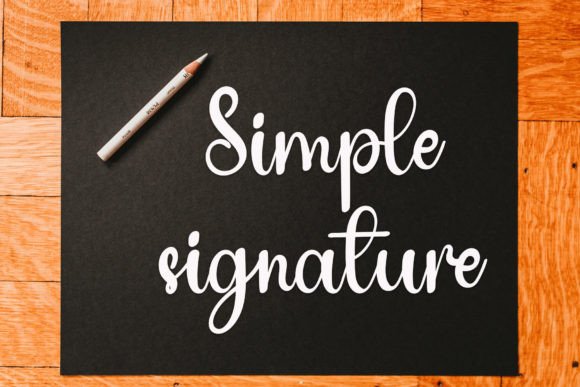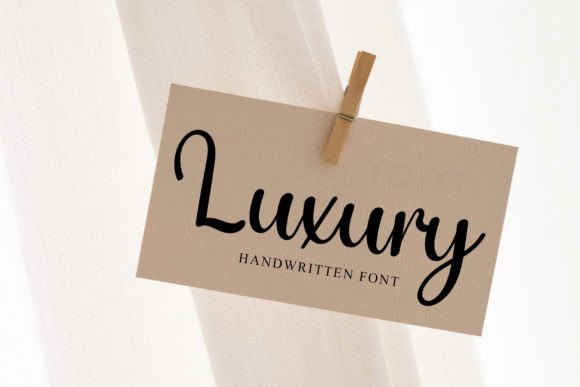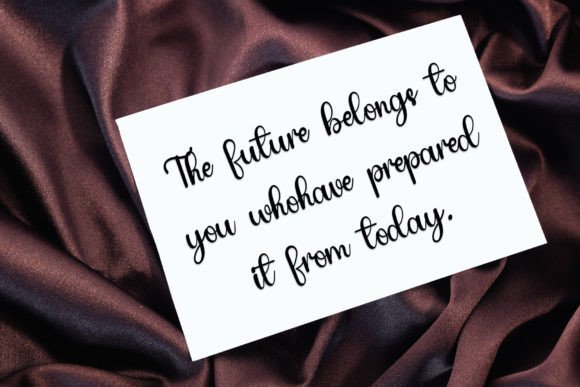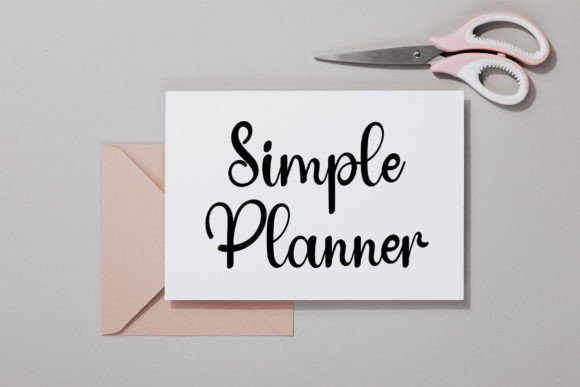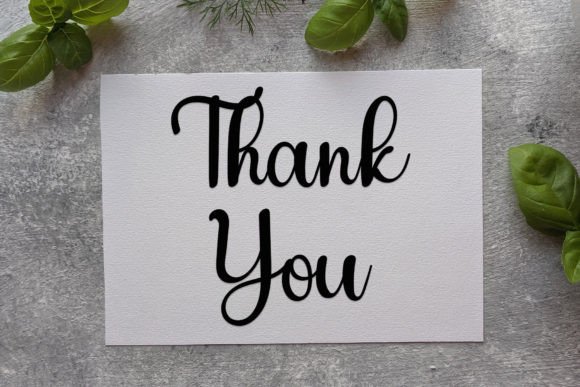
Babyish Font: Elevate Your Designs with Elegant Script Style
In the world of typography, fonts play a crucial role in conveying the tone and aesthetic of a design. For those seeking a stylish and elegant script font, Babyish is an excellent choice. This beautiful font is perfect for adding a handwritten touch to various design projects, including wedding invitations, thank you cards, quotes, greeting cards, logos, business cards, and more.
What is Babyish Font?
Babyish is a stunning script font that exudes elegance and sophistication. Its flowing lines and delicate curves make it an ideal choice for designs that require a personal and intimate feel. The font’s unique style is reminiscent of handwritten scripts, making it perfect for creating bespoke designs that stand out from the crowd.
Characteristics of Babyish Font
Babyish font boasts several characteristics that make it a popular choice among designers and crafters:
- Elegant and sophisticated: Babyish font features flowing lines and delicate curves, giving it an air of elegance and refinement.
- Handwritten style: The font’s handwritten style adds a personal touch to designs, making them more relatable and engaging.
- Versatile: Babyish font can be used for a wide range of design projects, from wedding invitations to business cards.
- Easy to read: Despite its elegant style, Babyish font is easy to read, making it perfect for designs that require a clear and concise message.
Uses of Babyish Font
Babyish font can be used in various design projects, including:
- Wedding invitations: Add a touch of elegance to your wedding invitations with Babyish font.
- Thank you cards: Express your gratitude with beautifully designed thank you cards featuring Babyish font.
- Quotes: Make your quotes stand out with the elegant and sophisticated style of Babyish font.
- Greeting cards: Create personalized greeting cards for special occasions using Babyish font.
- Logos: Use Babyish font to create a unique and memorable logo for your business.
- Business cards: Add a touch of elegance to your business cards with Babyish font.
Tips for Using Babyish Font
To get the most out of Babyish font, follow these tips:
- Pair with complementary fonts: Pair Babyish font with complementary fonts to create a visually appealing design.
- Use for headlines and titles: Use Babyish font for headlines and titles to add a touch of elegance to your design.
- Keep it simple: Don’t overcomplicate your design – keep it simple and elegant to let Babyish font shine.
In conclusion, Babyish font is a stylish and elegant script font that can elevate your designs to the next level. Its unique style, versatility, and ease of use make it a popular choice among designers and crafters. Whether you’re creating wedding invitations, thank you cards, or business cards, Babyish font is an excellent choice for adding a handwritten touch to your designs.